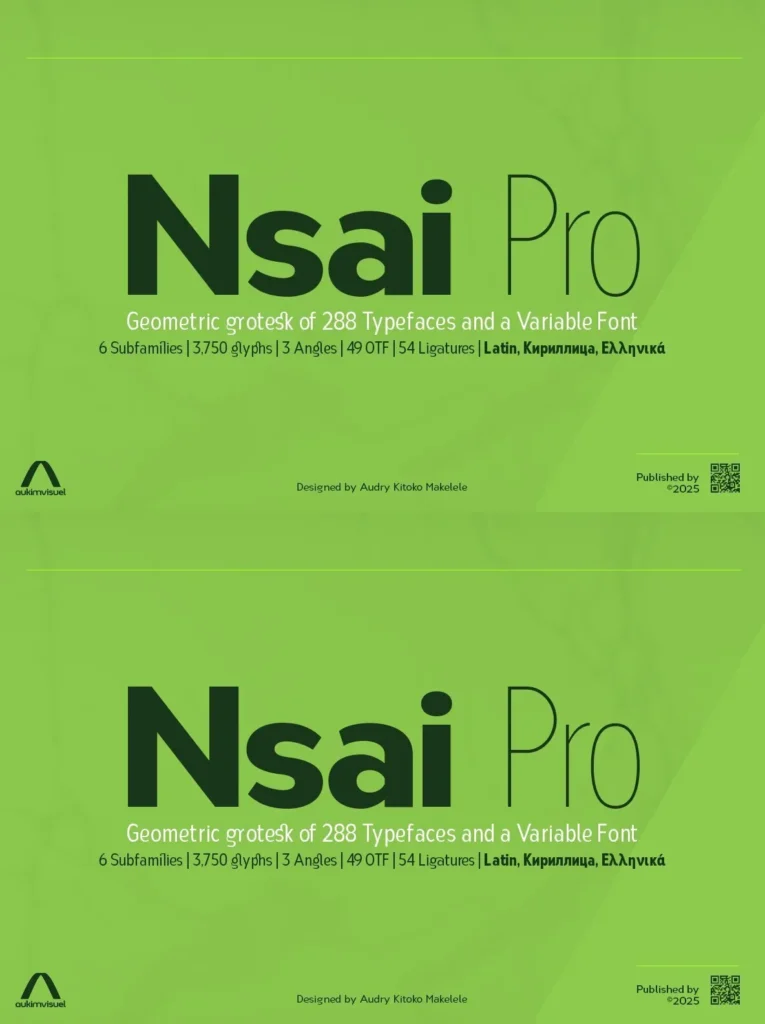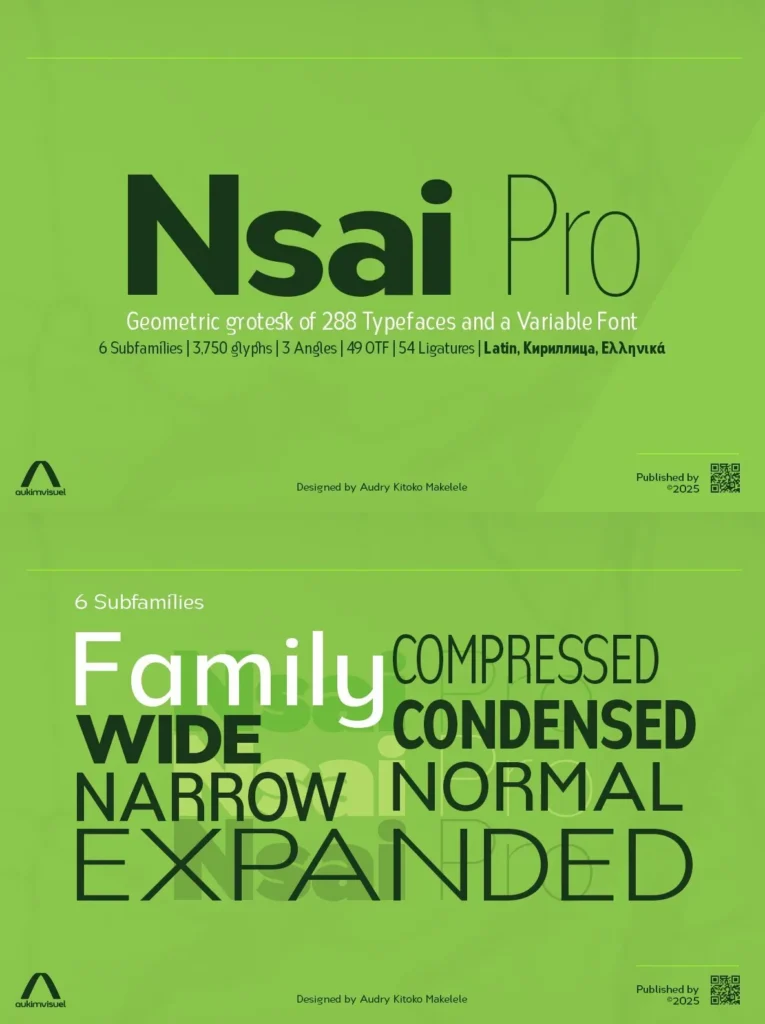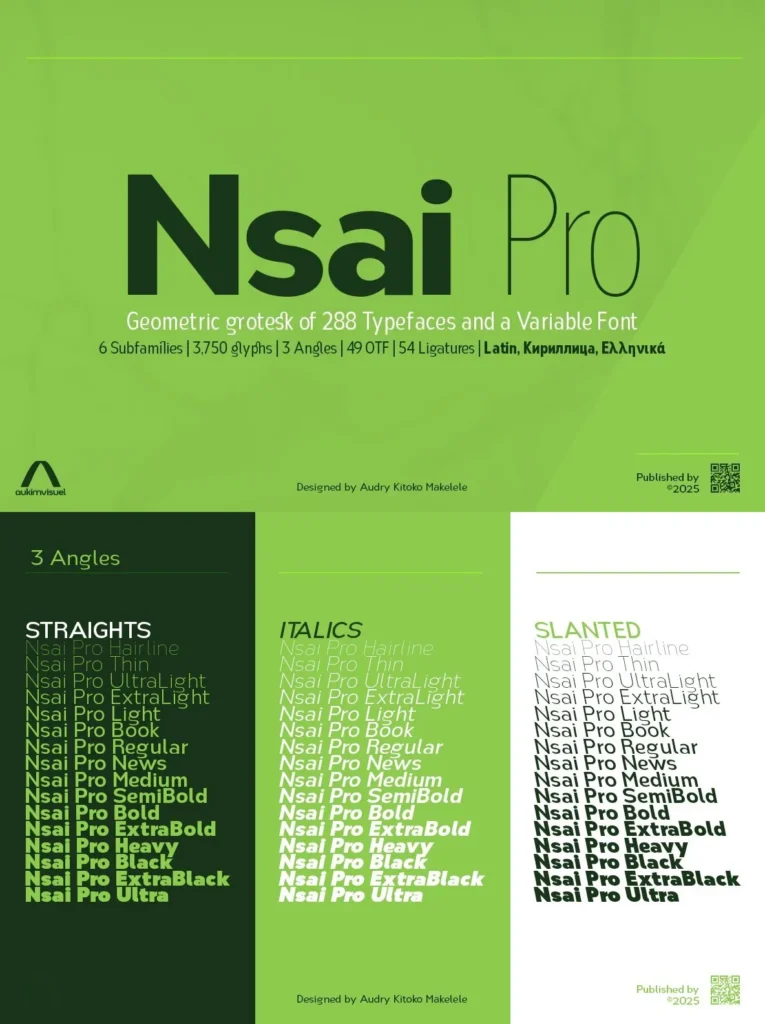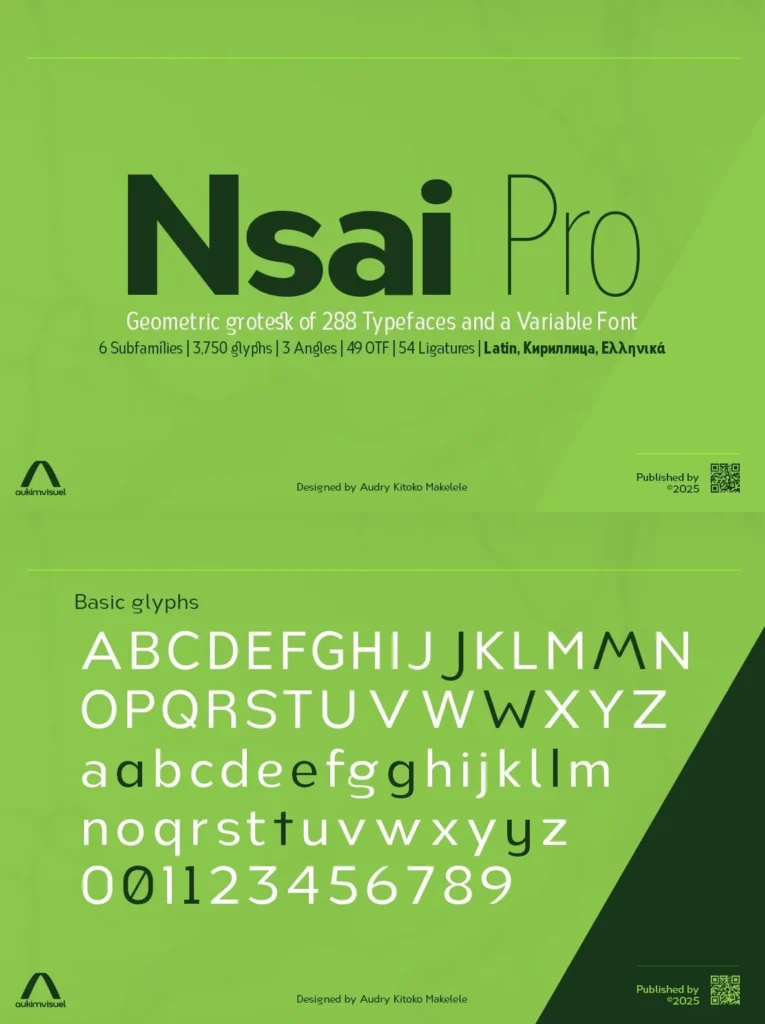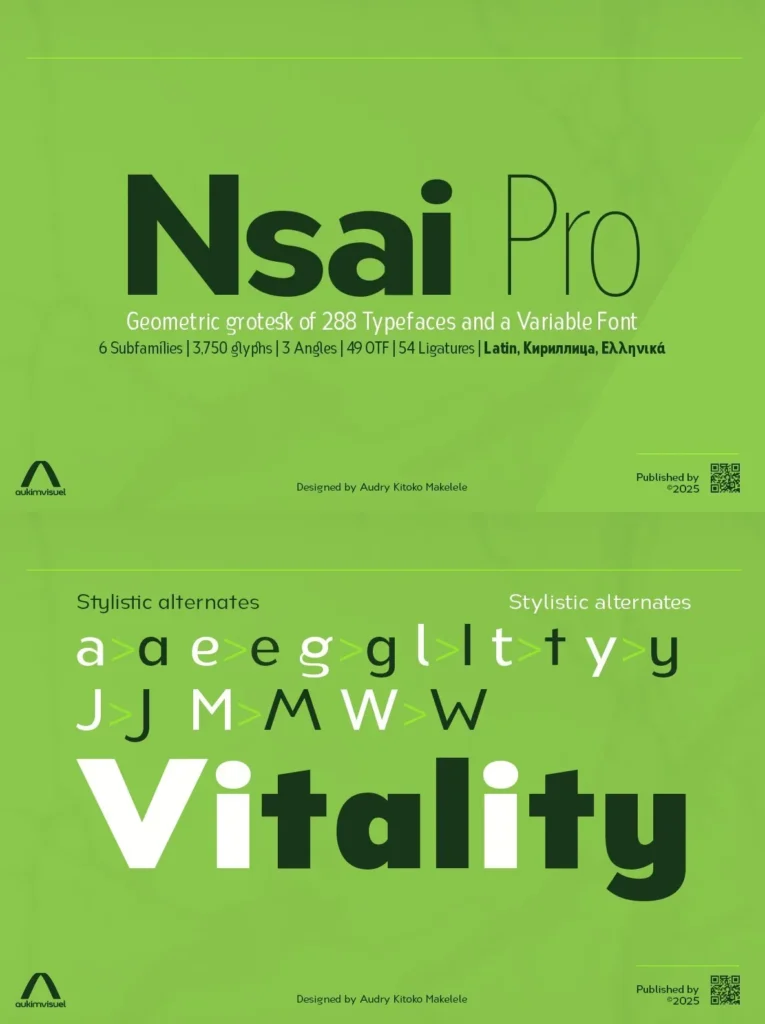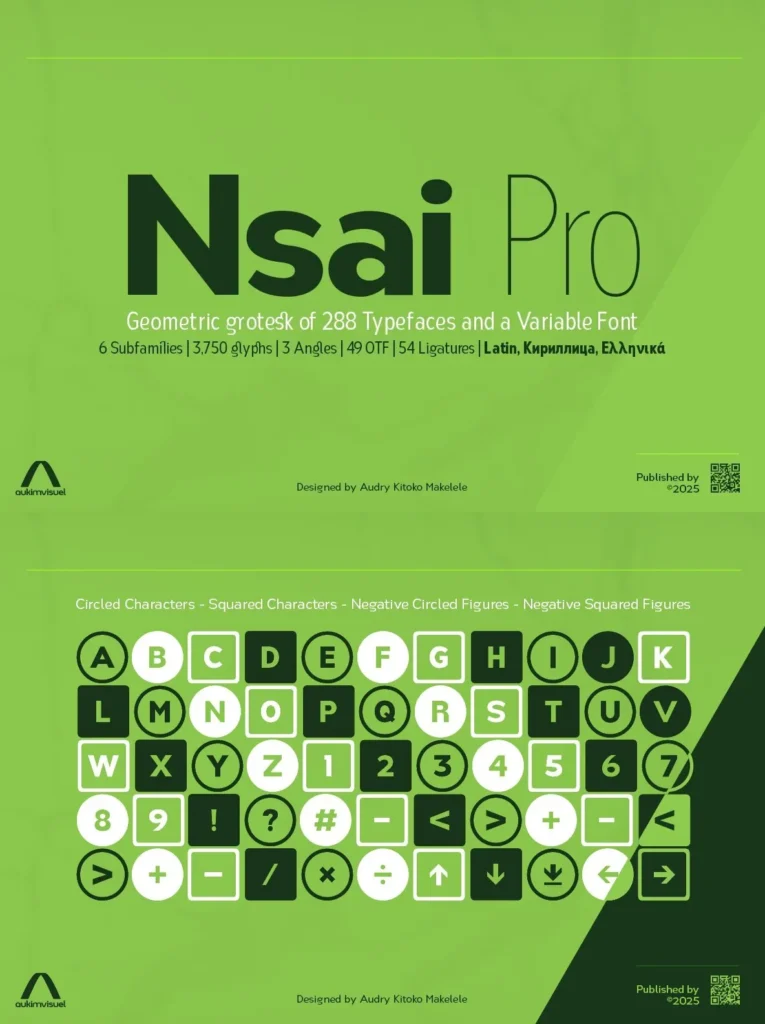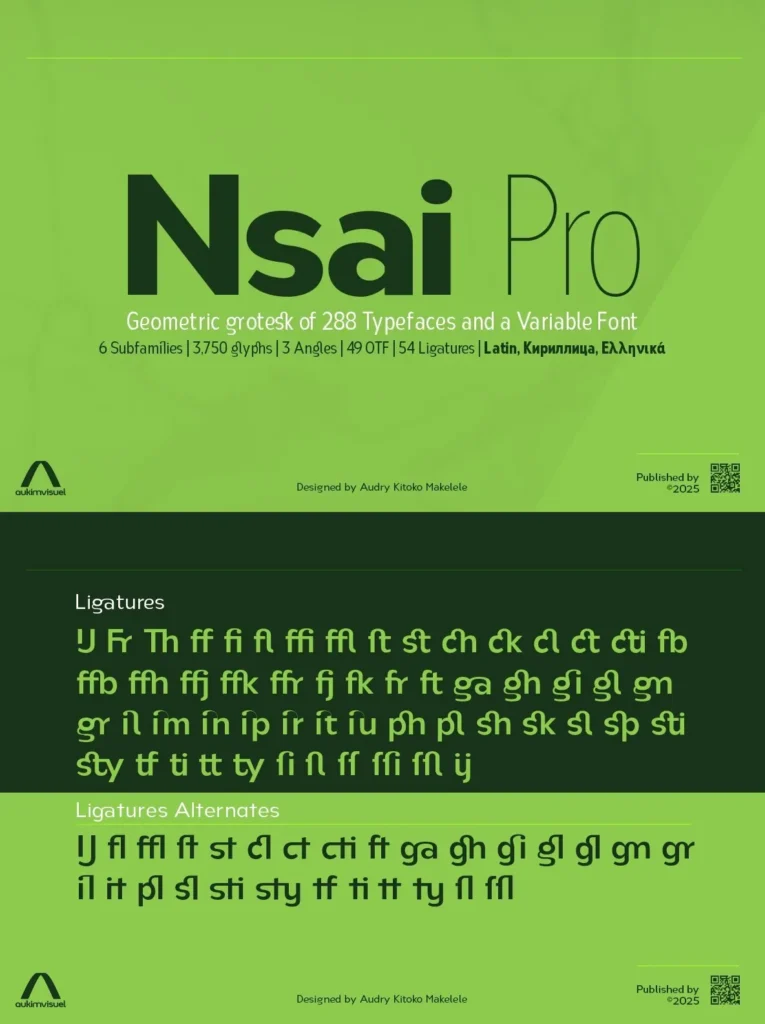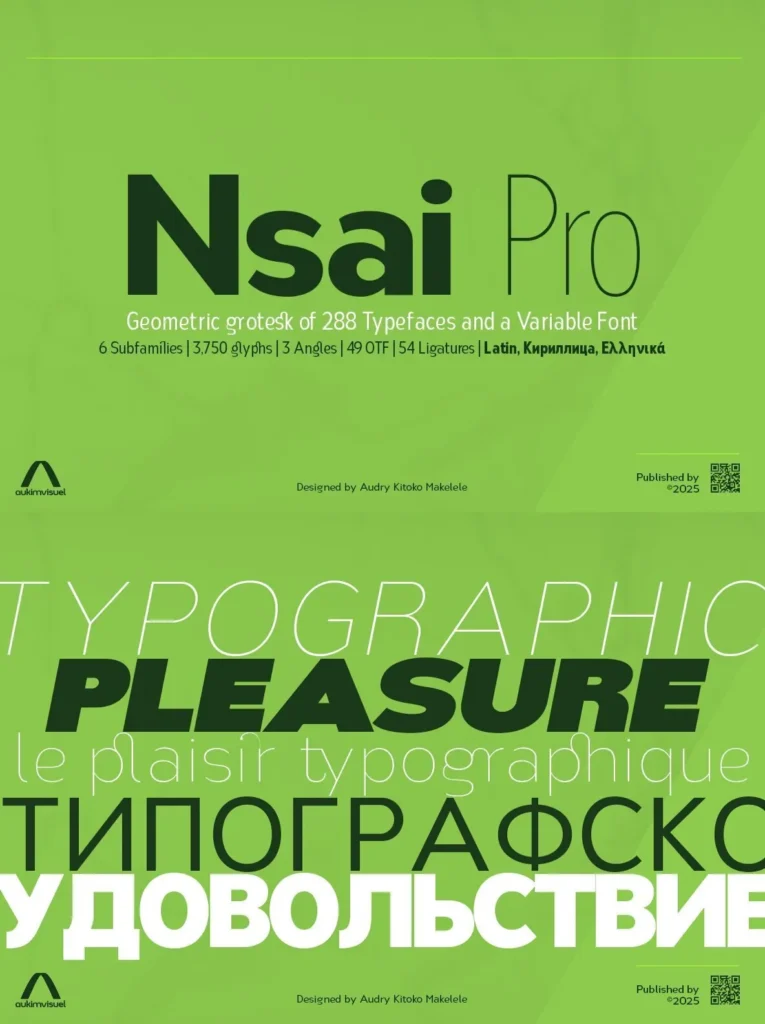
Nsai Pro — One Family, Many Scripts
Nsai Pro embodies the typographic culmination of an ambitious vision: to unite aesthetic finesse, technical performance, and linguistic openness in a single typeface family. Based on the original Nsai Font design, this new version amplifies its qualities with unrivalled structural richness and versatility for demanding graphic environments. Every curve is refined, and every detail is carefully calibrated to support legibility and visual presence.
At the heart of the project is an infrastructure of 3,750 glyphs, covering an exceptional range of writing systems. The Latin alphabet is expressed in all its nuances, from basic characters to advanced and phonetic IPA extensions. Cyrillic and Greek appear in contemporary, extended, and historical forms. Nko and Coptic scripts add an intercultural dimension. Roman numerals, universal currency symbols, pictograms, and signage are integrated with precision and consistency.
Nsai Pro also includes a particularly rich OpenType architecture with 49 advanced functionalities, alongside 54 carefully designed ligatures for fluid reading and refined texture. The family offers 6 widths—Compressed, Condensed, Narrow, Regular, Wide, and Expanded—and sixteen weights, from Hairline to Ultra. It is built for demanding professionals across publishing, interface design, and visual identity, with rigor, elegance, and boldness.